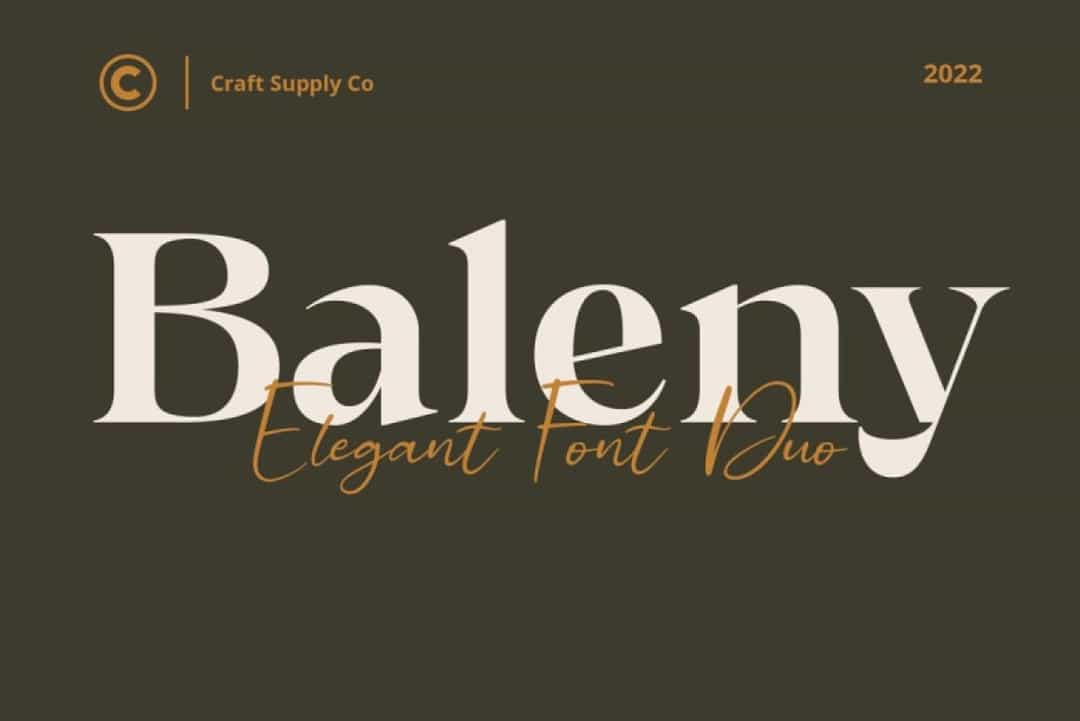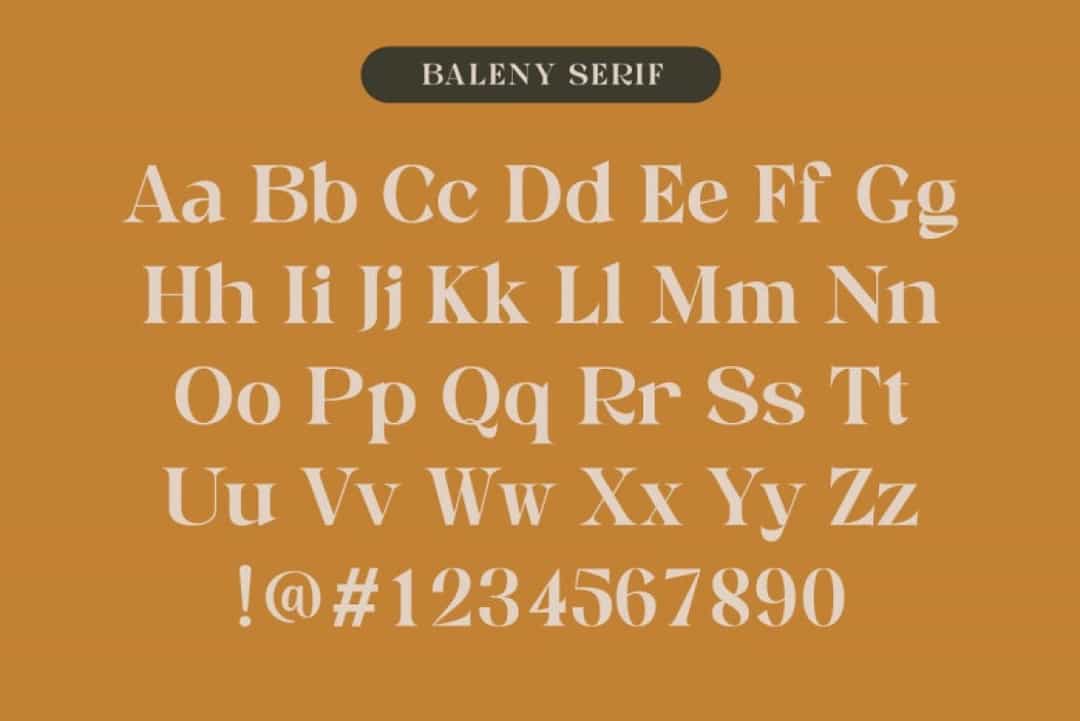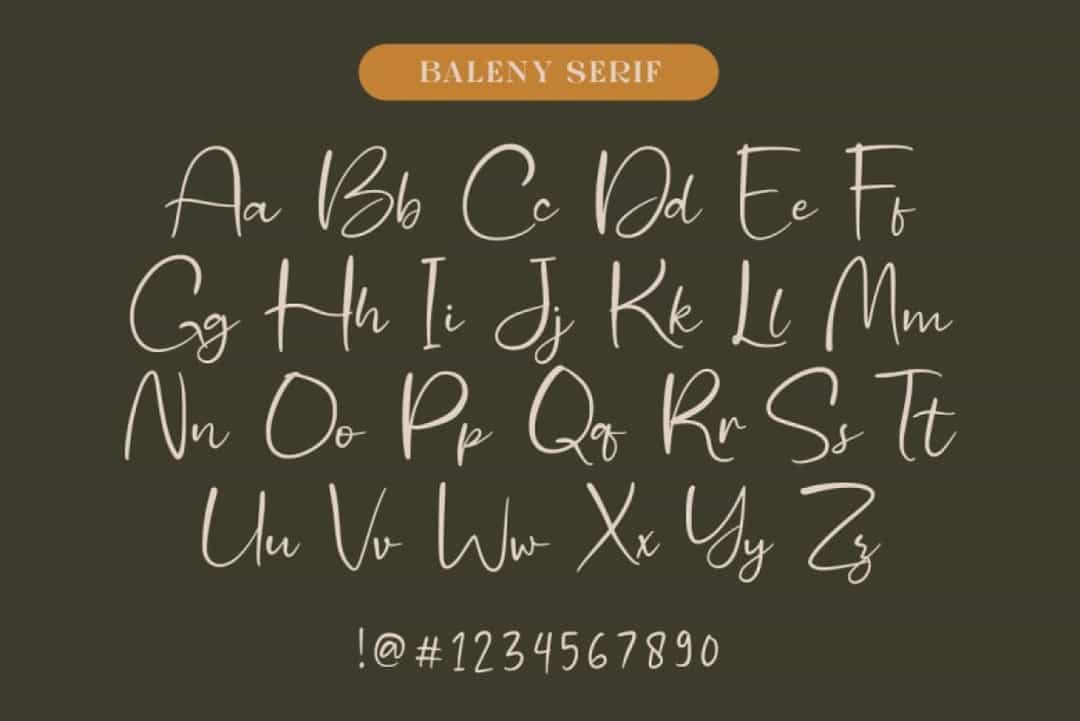
Discover Baleny Elegant Font, part of the Handwritten Serif collection—a versatile and unique font perfect for adding a personal touch to your projects. Download it for free and enjoy crafting designs with style, from invitations to social media posts. This font is available exclusively for personal use, giving you the freedom to create without limits. Unlock your creativity with Baleny Elegant Font today!
Baleny Elegant Font Duo can be described as an inimitable blend of serif font and elegant handwritten script fonts inspired by actual handwriting. Ideal for fashion brands, e-commerce websites, wedding boutiques, trend blogs or any business that wishes to appear chic and sophisticated, Baleny Elegant Font Duo makes the ideal combination.